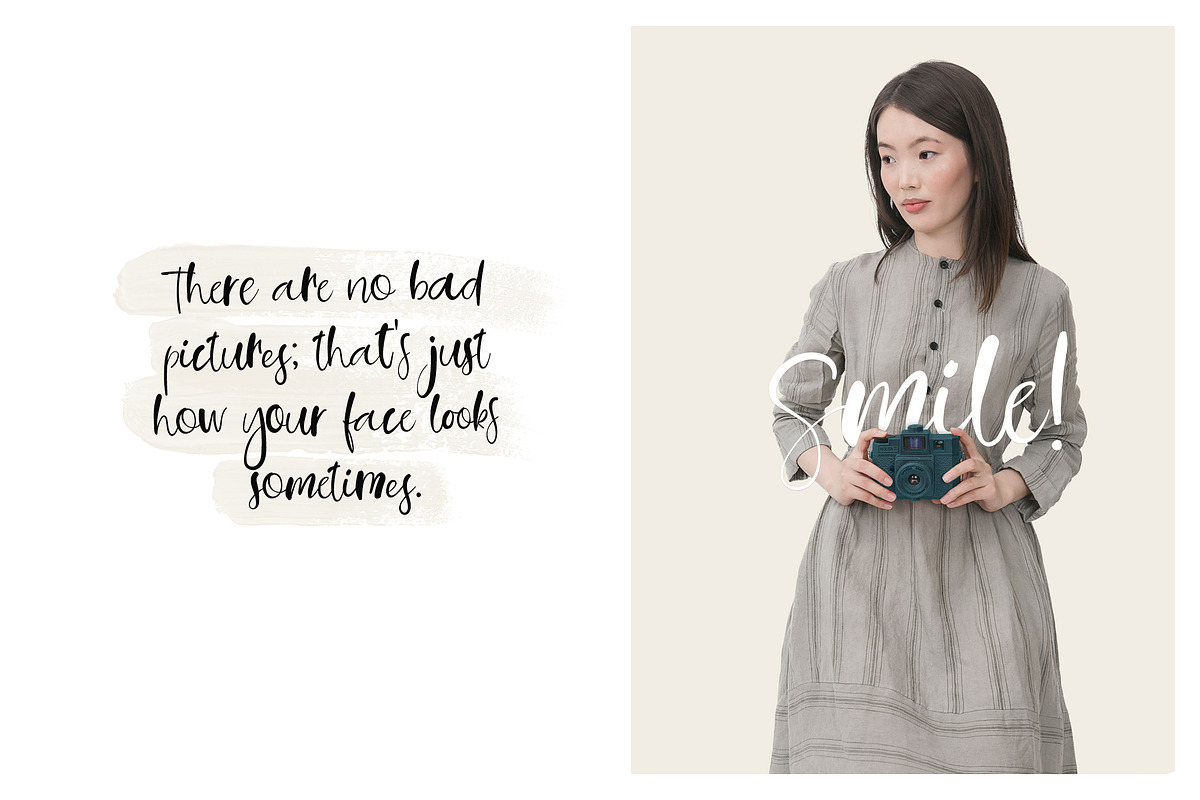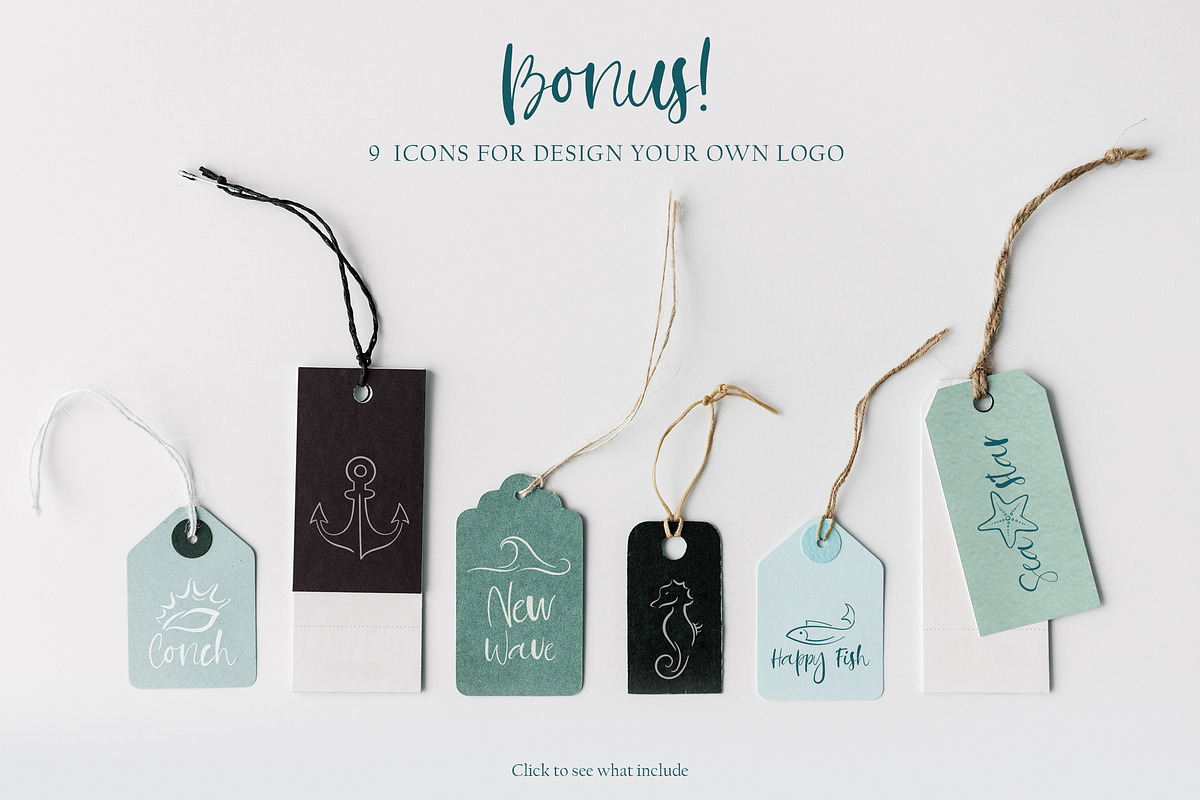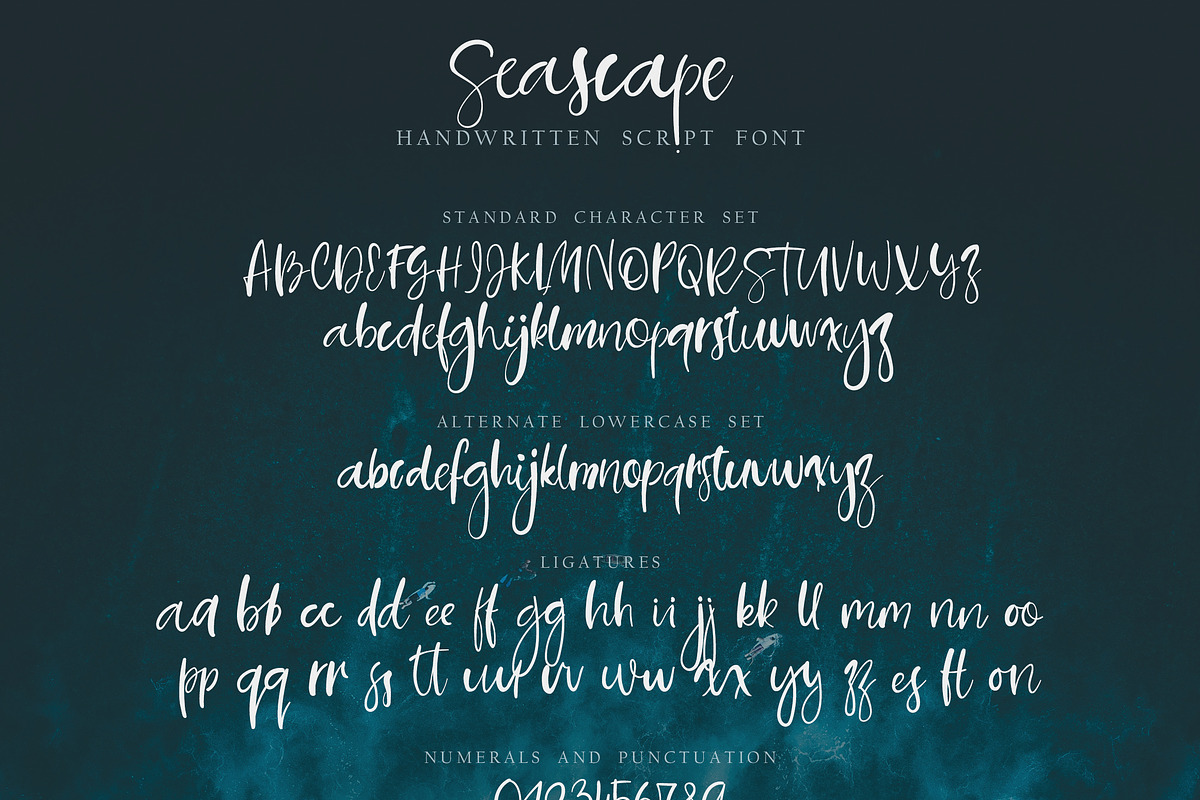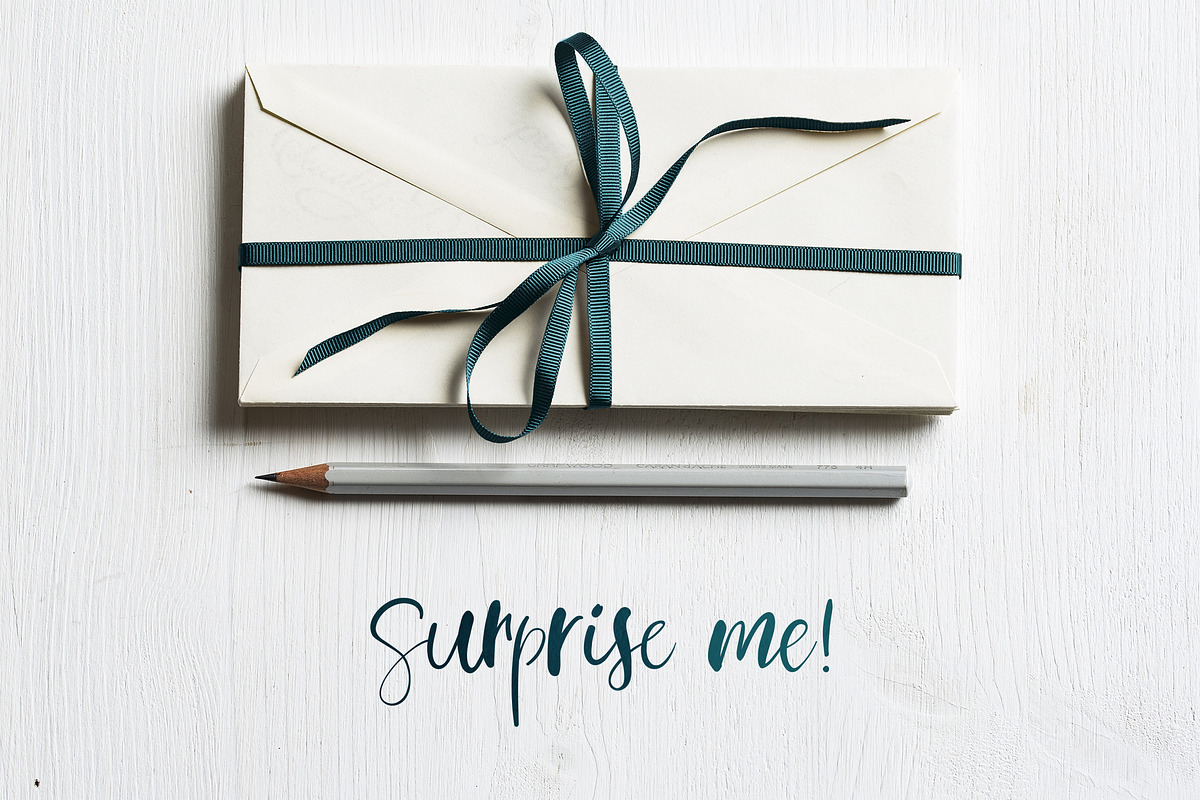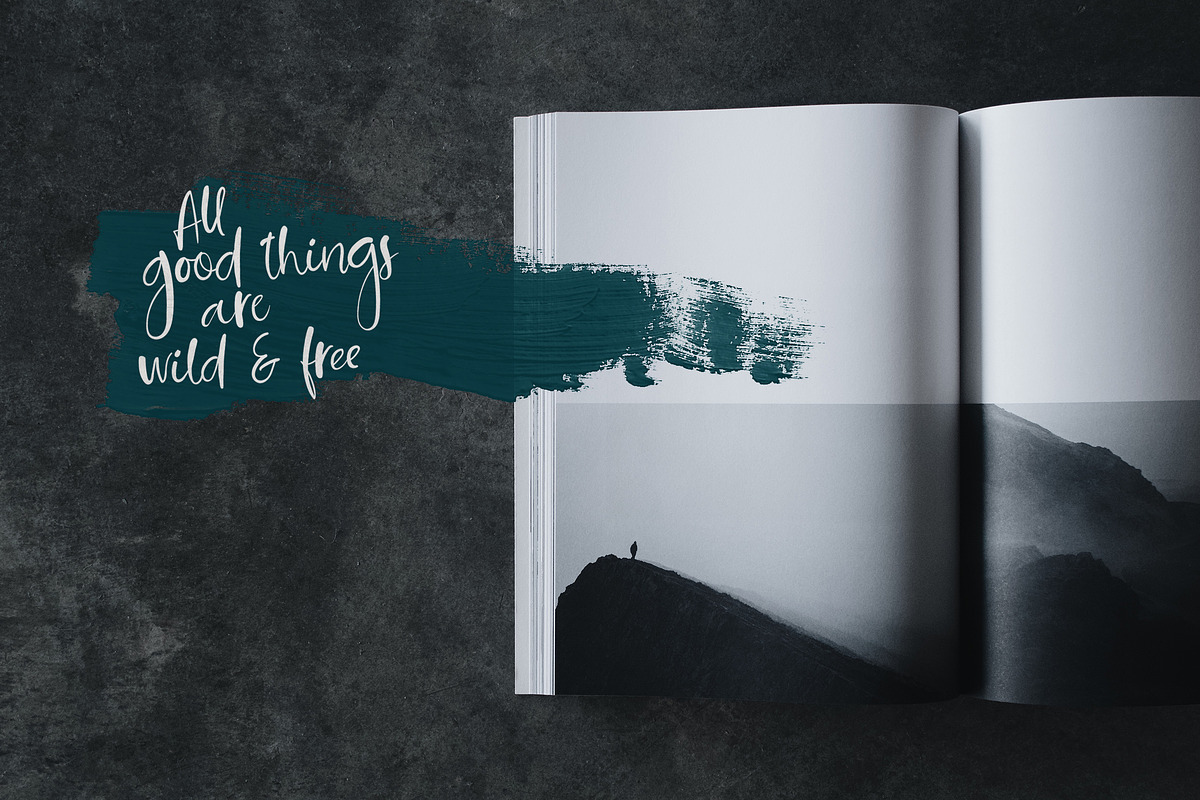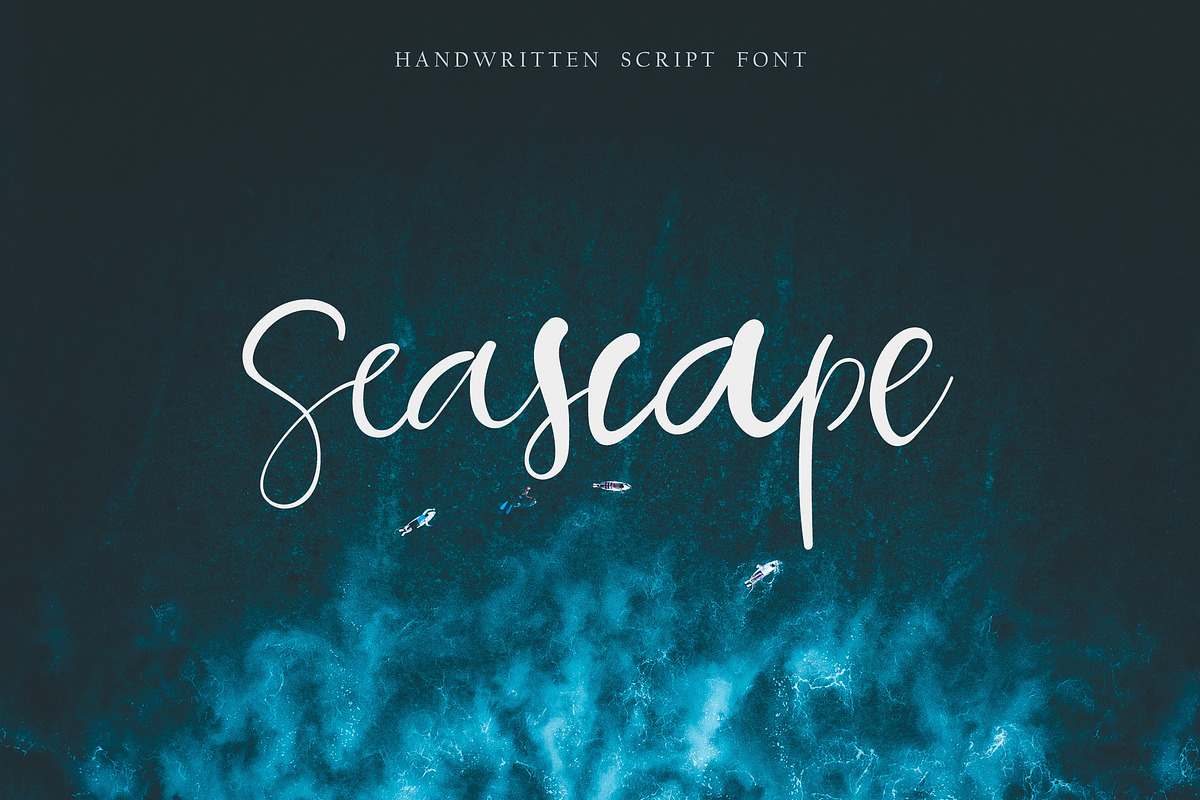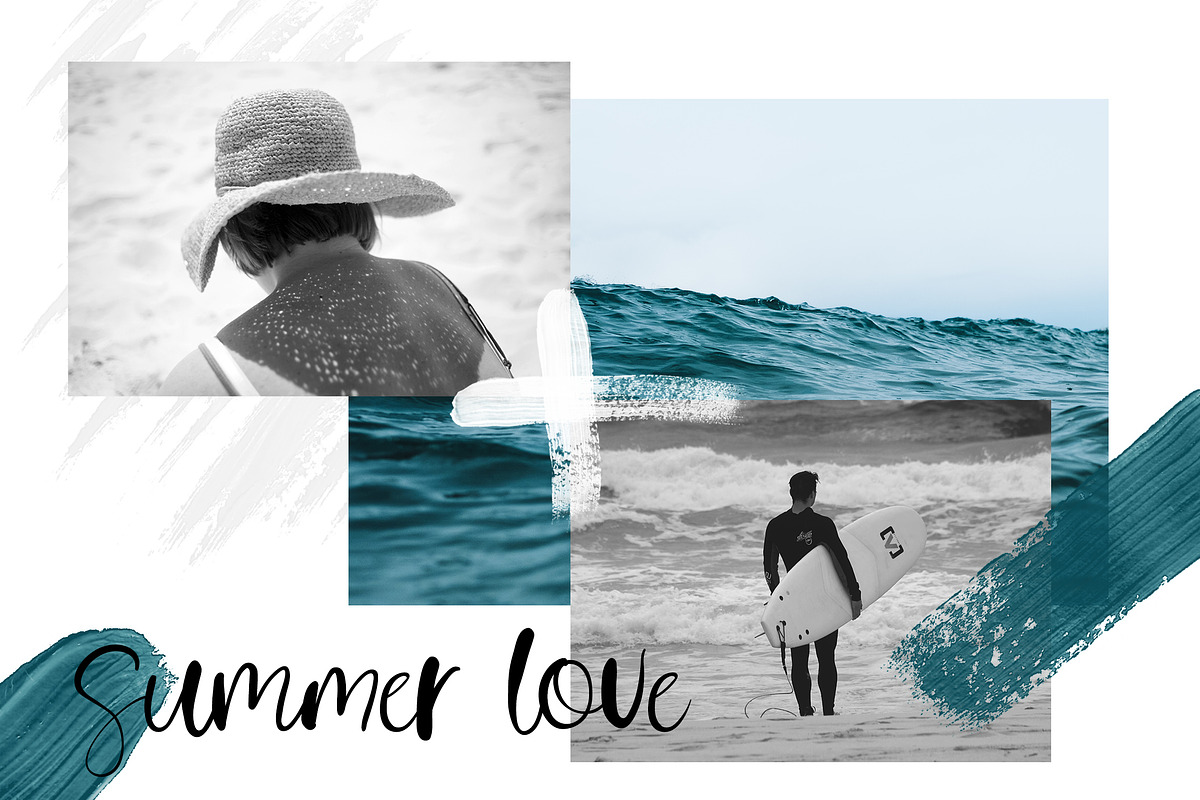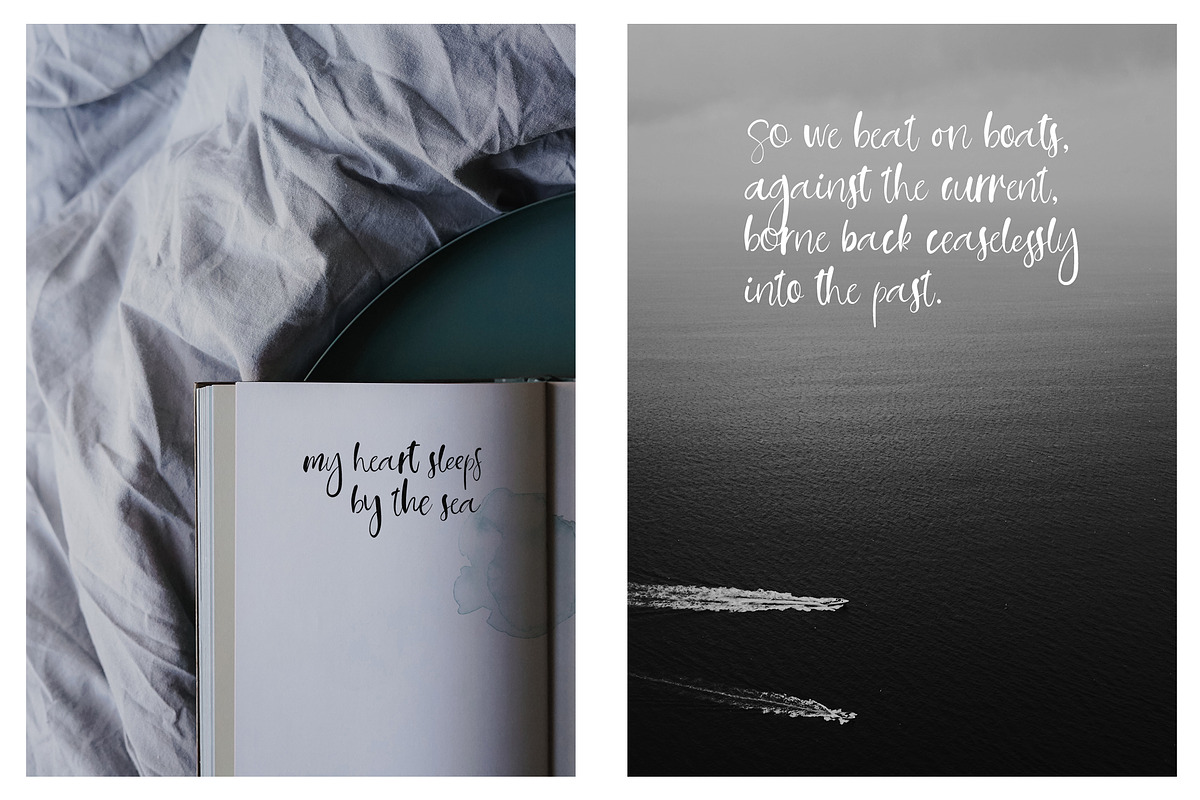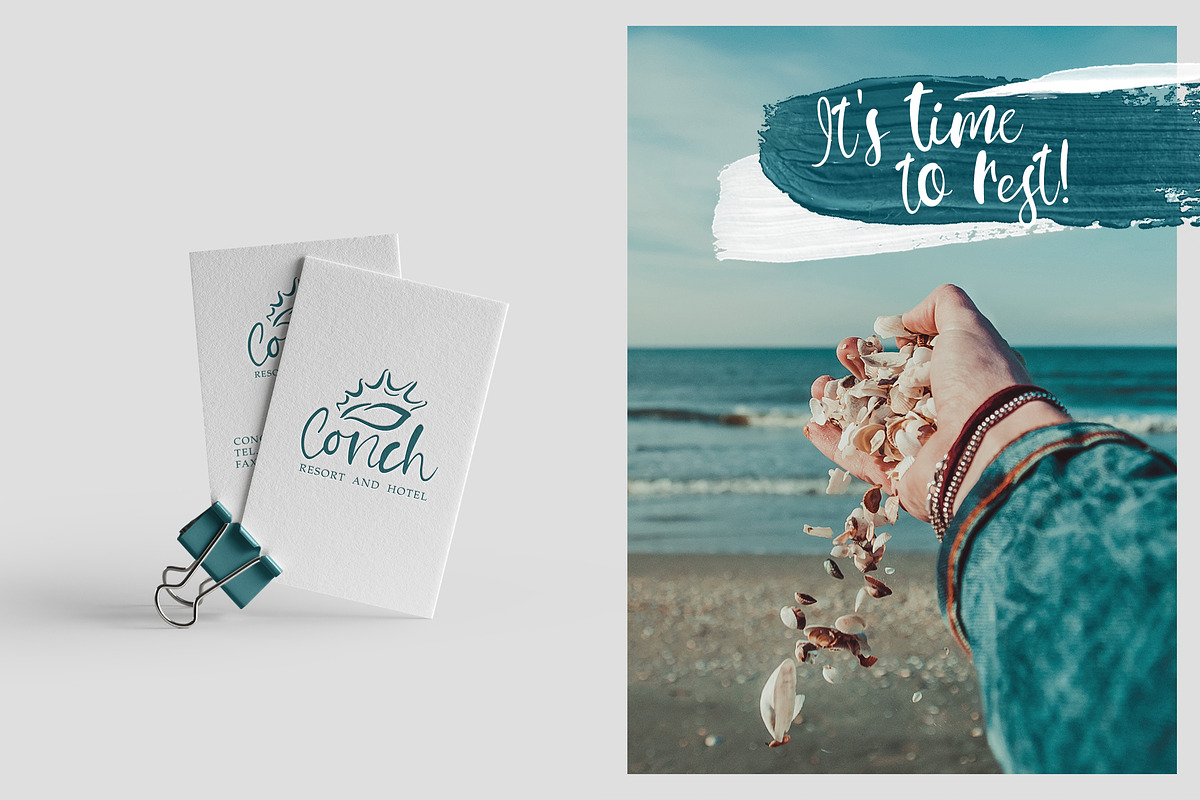
Seascape. Script Font
I’m pleased to introduce my new handwritten script font Seascape (with a nice bonus).
This font includes ligatures and full set of lowercase alternates to make your text as close to a natural handwritten script as possible. It's perfect for branding, wedding invites and cards, headings, signatures, product packaging, quotes, greeting cards, logos, overlays and much more.
Create your own logo with BONUS! You will get 9 icons for design your own logo, branding, print, t-shirt design and so much more!
In addition to English, Seascape supports main European Languages.